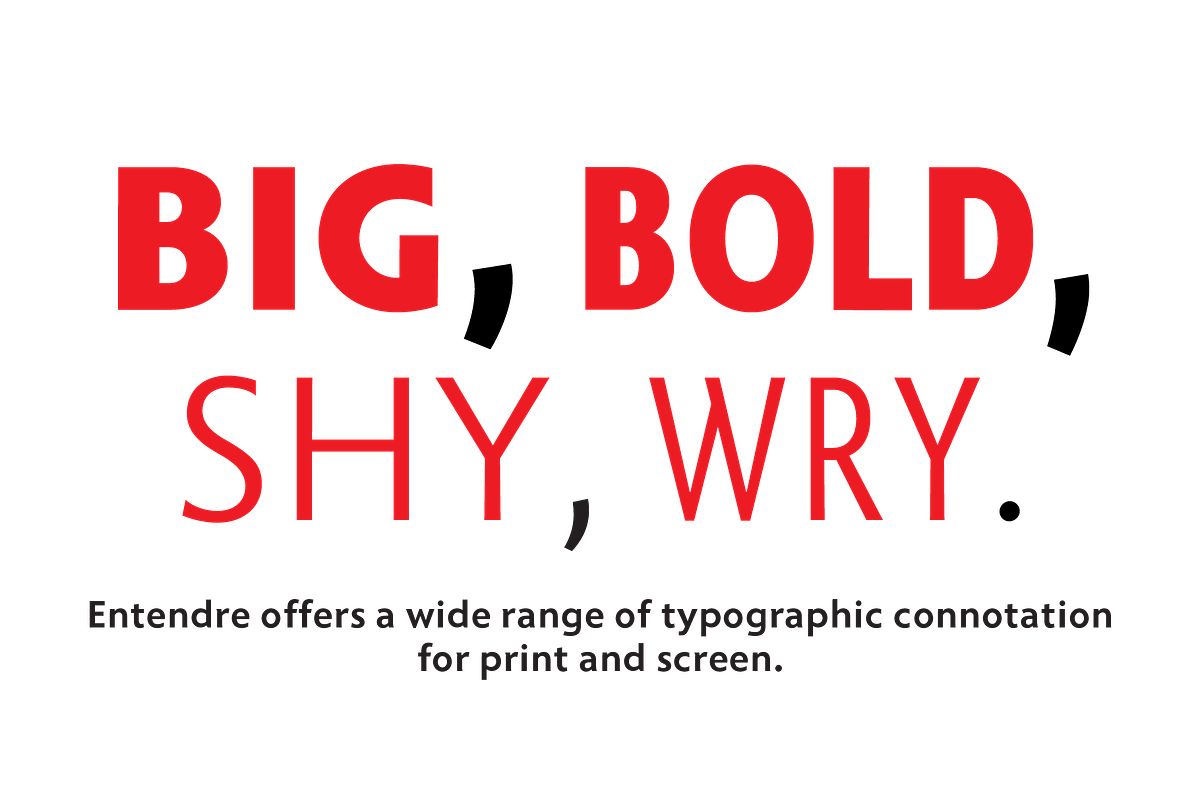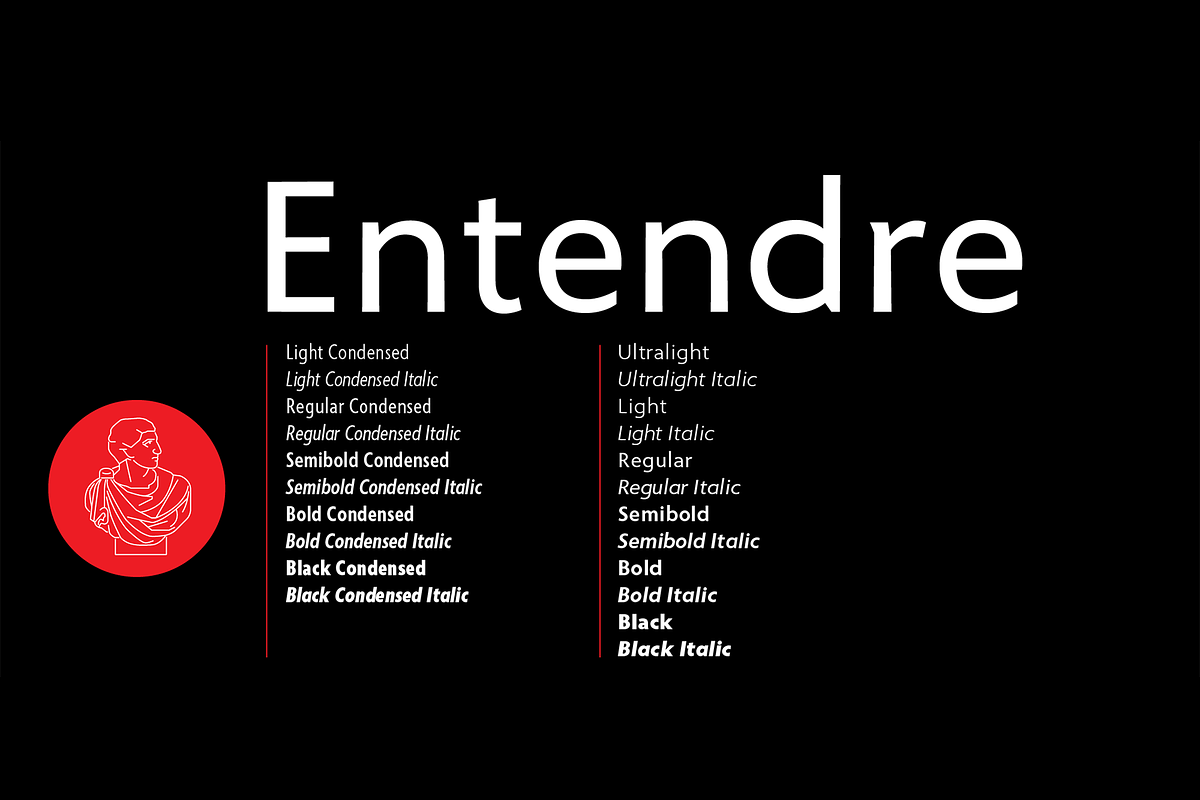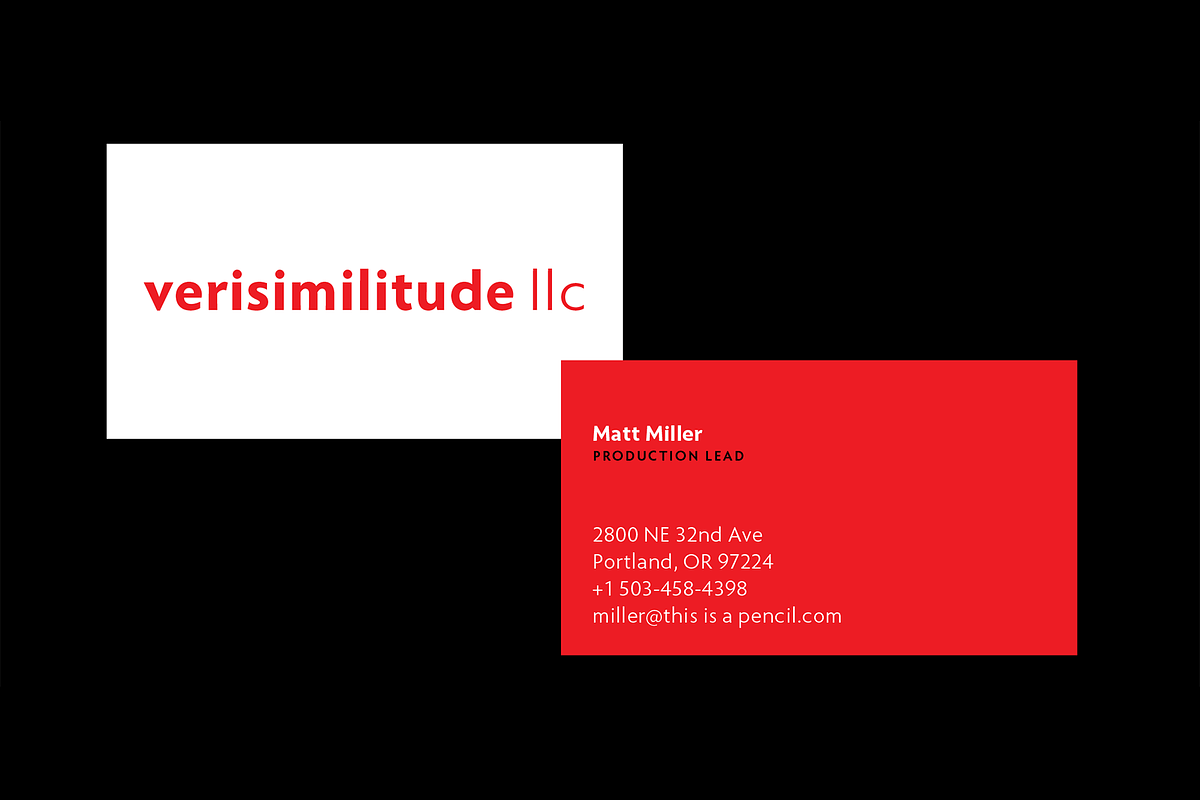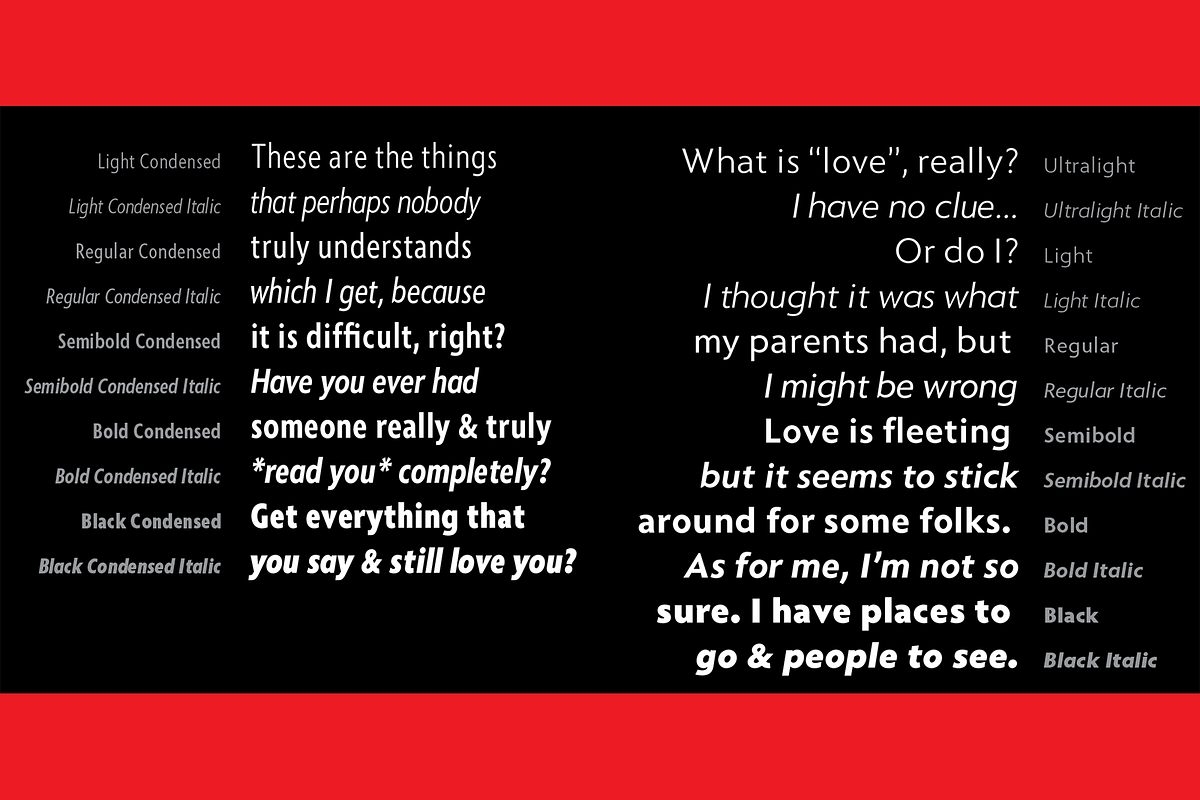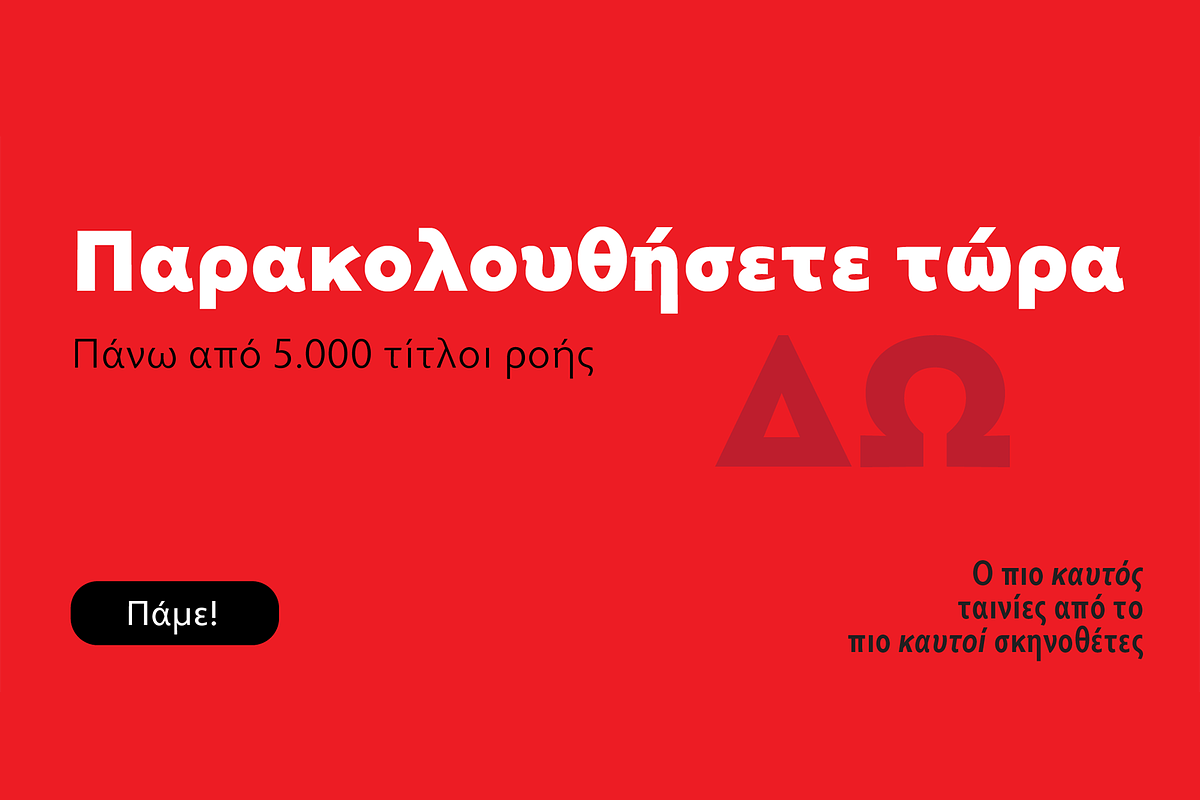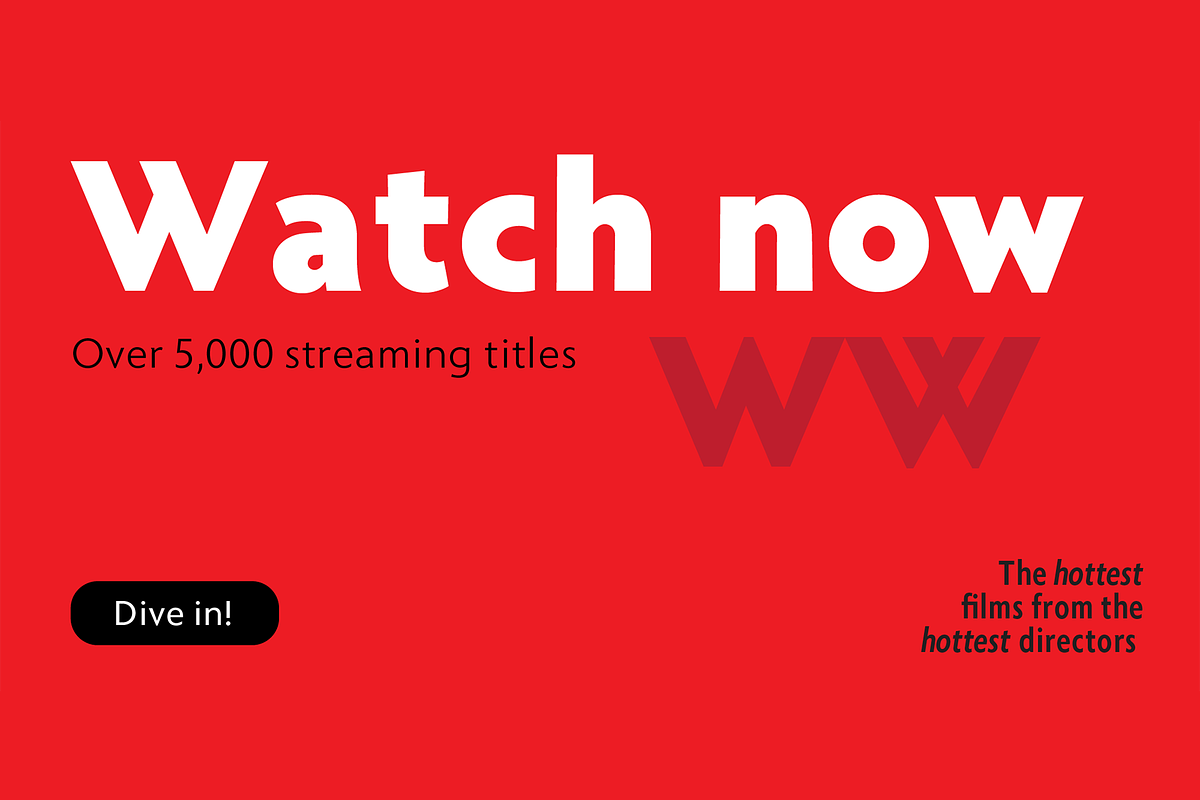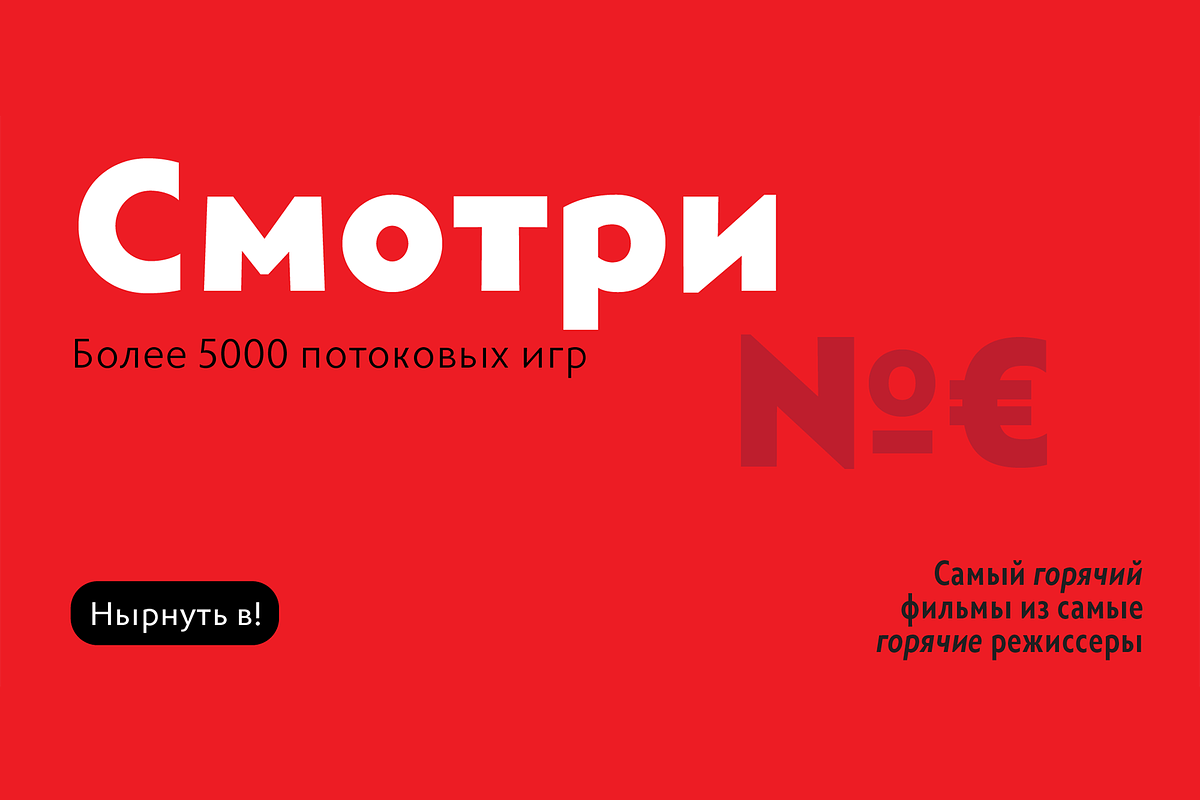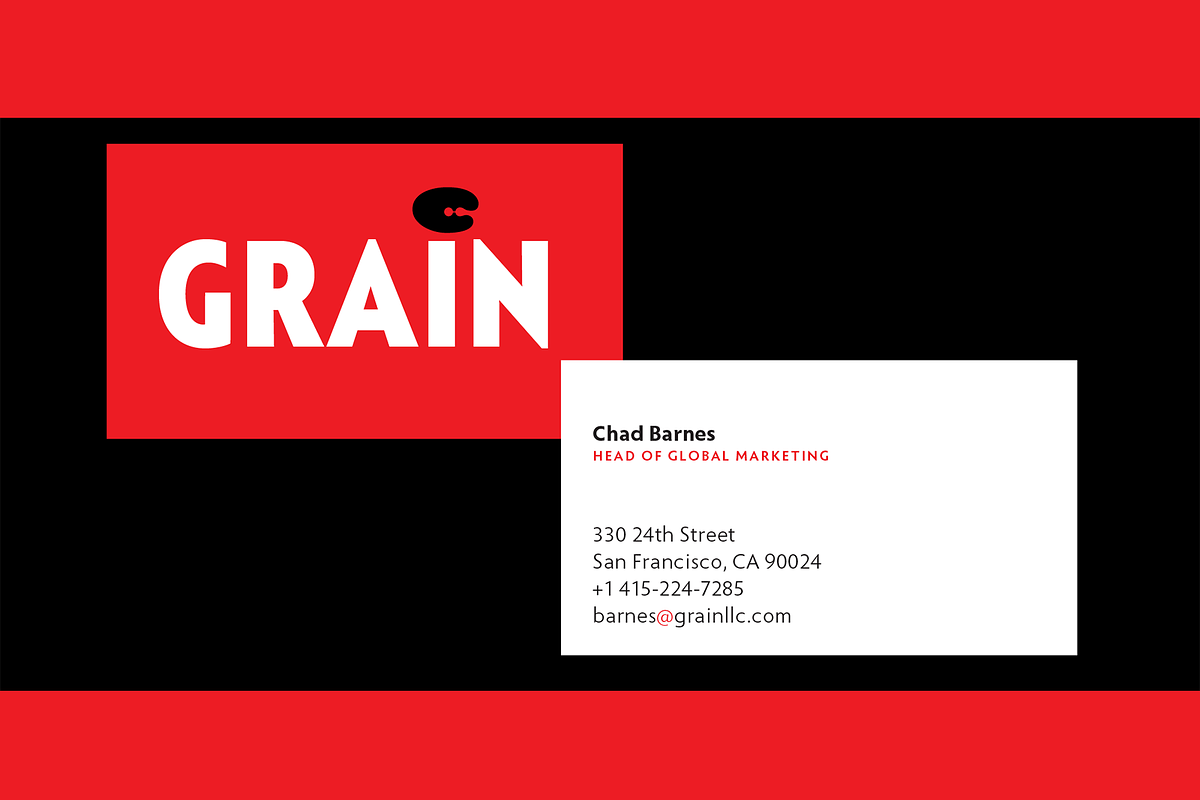
Entendre
Entendre is a stately, commanding and handsome sans serif typeface family that pulls reference from Trajan capitals, the history of English calligraphy, and a variety of other sources to summon a sense of warmth, consideration, trust and authority. Entendre spans 22 weights and styles including Regular and Condensed versions. as well as variable font versions! The large x-height and refined characteristics of the family lend the family a sober and sophisticated appearance that is suitable for both print design and on-screen use. Entendre includes Central and Eastern European language support as well as Western European language support, including Greek and Cyrillic.
Entendre’s generous x-height and medium-length ascenders and descenders offer pronounced readability, making the family useful for text typesetting both in print and on screen. Within, humanist elements are tempered with monumental construction, making the heavier weights go-tos for display design work. All of the Entendre family of typefaces feature Western, Eastern and Central European language support alongside nuanced Greek and Cyrillic.